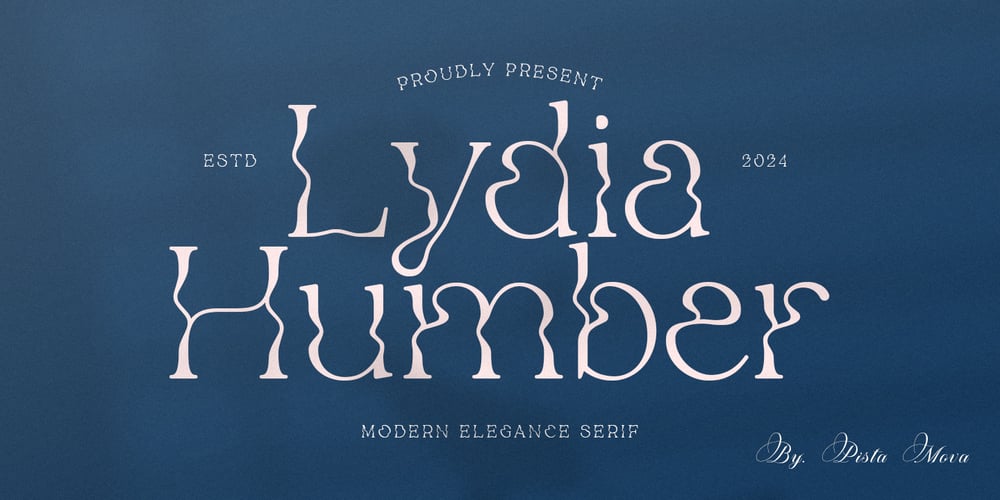
Lydia Humber Font Family was designed by Haikal Juanda and published by Pista Mova. Lydia Humber contains 2 styles and family package options. Trendy, classy & modern stylish serif font for your luxury projects. Lydia Humbers elegant, fashion and classic font style will be a perfect fit for any branding project. Many alternatives and bindings will help you create a unique and original logo or website header design! Multilingual Support Uppercase Lowercase Number Punctuation PUA coded. Perfect for modern branding projects!